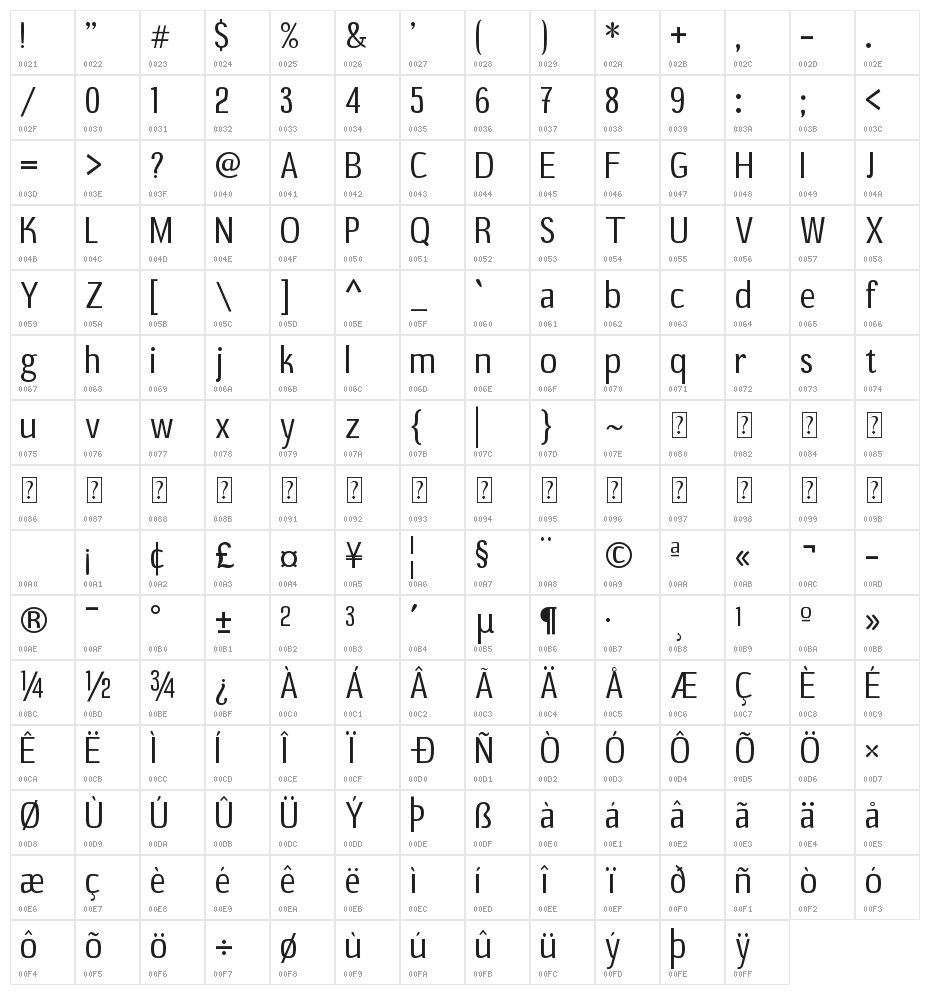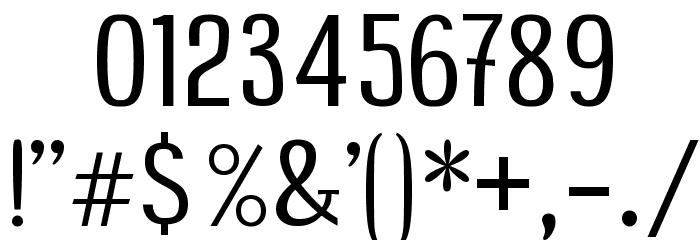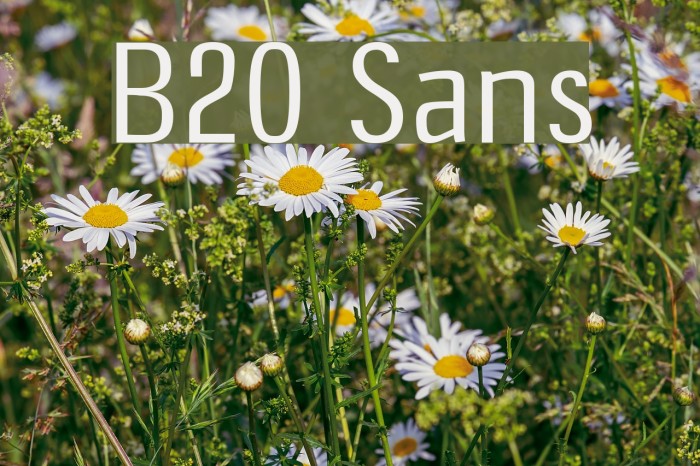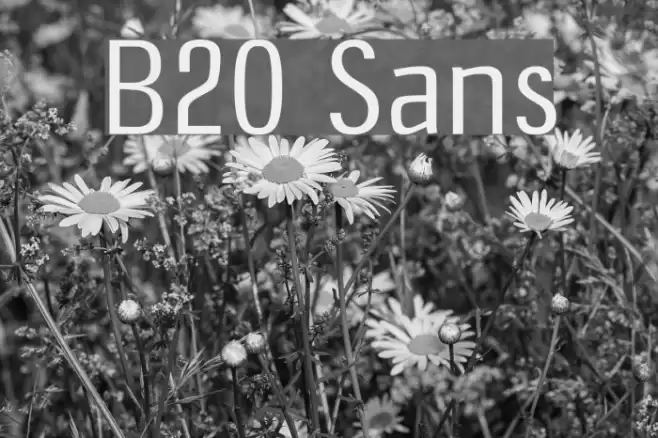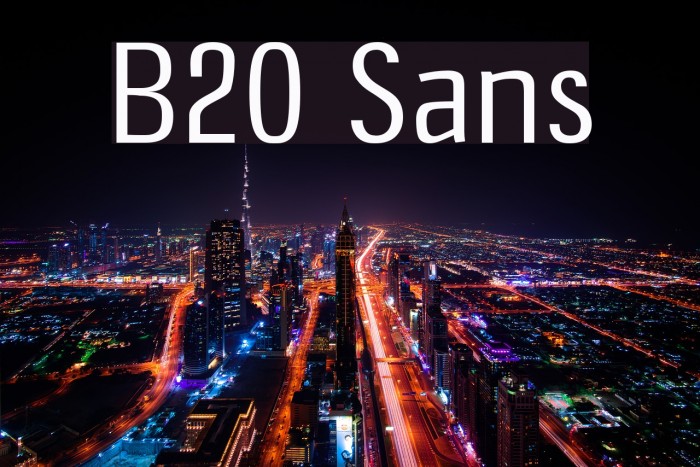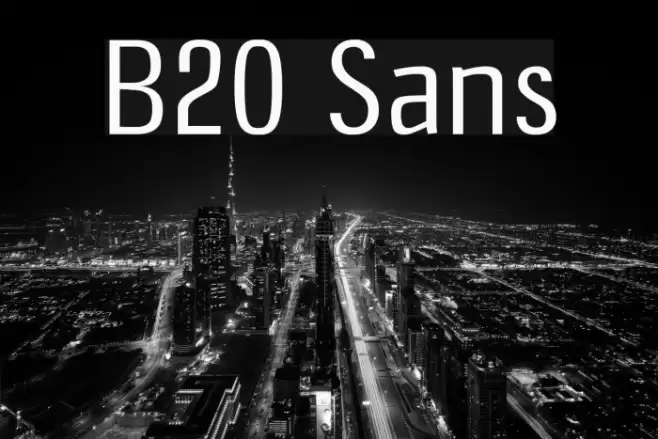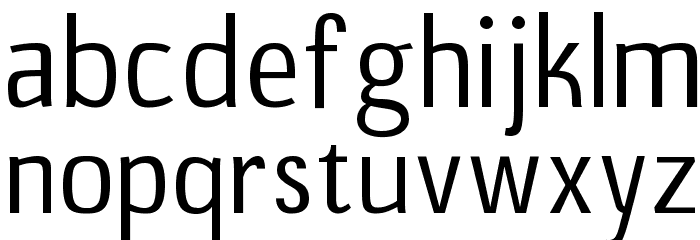
B20 Sans Font
B20 Sans Description
This typeface features a clean and modern sans-serif design, characterized by its uniform stroke width and geometric shapes. The uppercase letters are bold and assertive, while the lowercase letters maintain a consistent and harmonious appearance. The numerals are clear and easy to read, making them suitable for various applications. The special characters are well-defined, adding versatility to the font. Overall, this typeface exudes a contemporary and professional aesthetic, making it ideal for digital and print media.